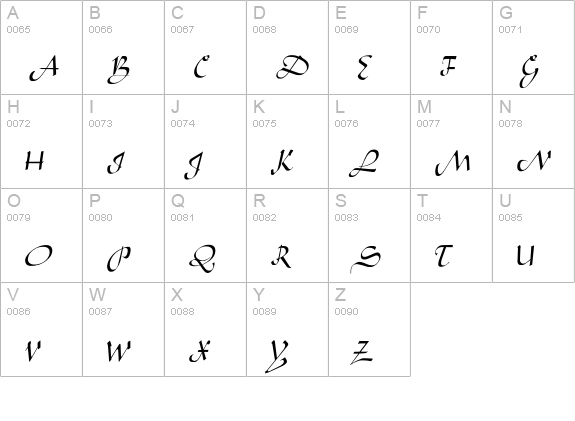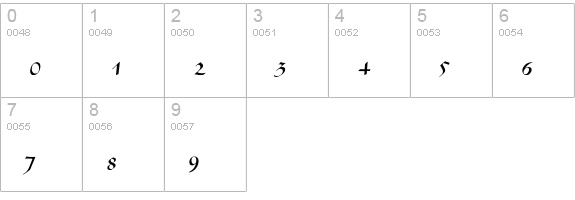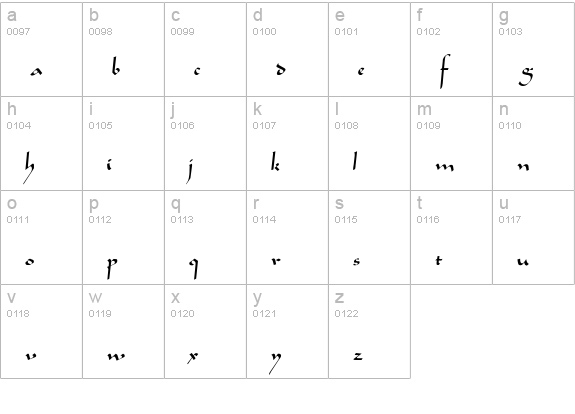
Wabolib-Normal Font Details
Wabolib-Normal is the standard, neutral variant in the Wabolib typeface family \xE2\x80\x94 well suited to general body text, paragraphs, and standard typographic work.
Introducing Wabolib-Normal, a captivating font that seamlessly blends elegance with modernity. This versatile typeface boasts a perfect balance between curvaceous letterforms and clean lines, making it an ideal choice for a wide range of projects. From logo designs to editorial layouts, Wabolib-Normal effortlessly elevates any composition to a new level of sophistication. Crafted with meticulous attention to detail, every glyph of Wabolib-Normal exudes a unique personality. The gentle curves and precise angles create a harmonious rhythm, ensuring legibility and readability across various sizes and mediums. Whether used for headlines, body text, or even in branding materials, this font captures attention and leaves a lasting impression. What sets Wabolib-Normal apart is its remarkable versatility. It effortlessly adapts to any design concept, whether it's a sleek and modern aesthetic or a more traditional and classic style. Its versatility makes it an invaluable asset for designers, allowing them to explore endless creative possibilities. And the best part? Wabolib-Normal is available for free download at FontsMarket.com. This means that anyone can enjoy the beauty and functionality of this exceptional font without any restrictions. Whether you are a professional designer or a passionate enthusiast, Wabolib-Normal is readily accessible, enabling you to bring your creative visions to life. So, why wait? Discover the power of Wabolib-Normal and unleash your creativity today. Download this exquisite font for free at FontsMarket.com and let it become an essential tool in your design arsenal.